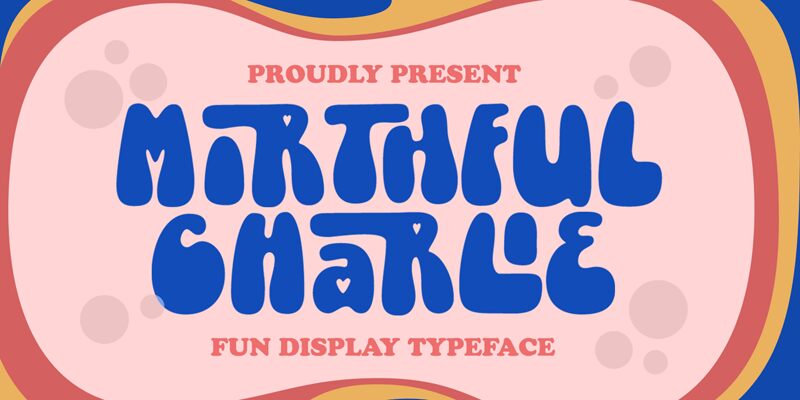
Mirthful Charlie, a captivating display font crafted by the talented designers at Letterhend Studio, exudes a delightful and whimsical charm. This bold typeface boasts an organic, hand-drawn aesthetic, with each letter possessing a unique, playful flair. The irregular stroke widths and slightly quirky letterforms create a sense of movement and energy, evoking a youthful and spirited atmosphere. Mirthful Charlie's distinctive style makes it an intriguing choice for a wide range of creative applications, from eye-catching logos and headers to playful branding and editorial designs.
This font's versatility shines through its ability to seamlessly transition between playful and sophisticated contexts. Its bold presence and dynamic personality make Mirthful Charlie an excellent selection for headlines, titles, and display text, where it can command attention and lend a touch of vibrant personality to any design. Whether you're crafting a lively social media campaign, designing a captivating event invitation, or exploring a fresh brand identity, Mirthful Charlie's captivating style is sure to leave a lasting impression.